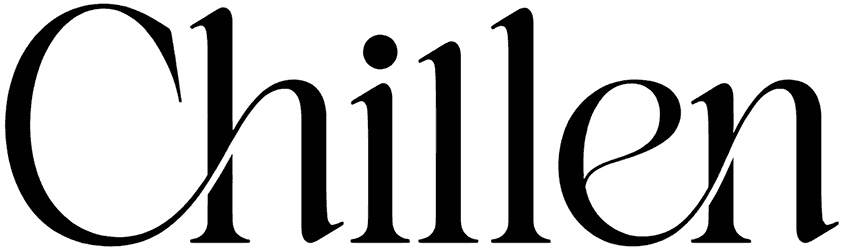
Toona Font
If you are looking for a formal serif font to add an authentic touch to your editorial projects, we strongly recommend you consider Toona as a serious choice.
This masterpiece comes in a simple form, so it can bring a vibe of minimalistic, confidence, respect, or professionalism to your graphic content, including movie posters, branding, book covers, or the user interface of applications. In addition to this artwork, you can find many other artistic products in the RB collection.
Designed by: Vacatype Co.